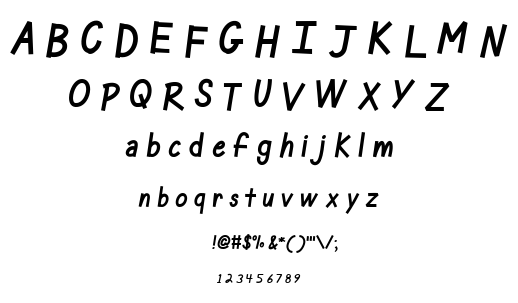
This was made for the Rusty The Edgehog comic series by Roland Hüse (of course you can use it too). It is really fun font that is perfect for comics 😀